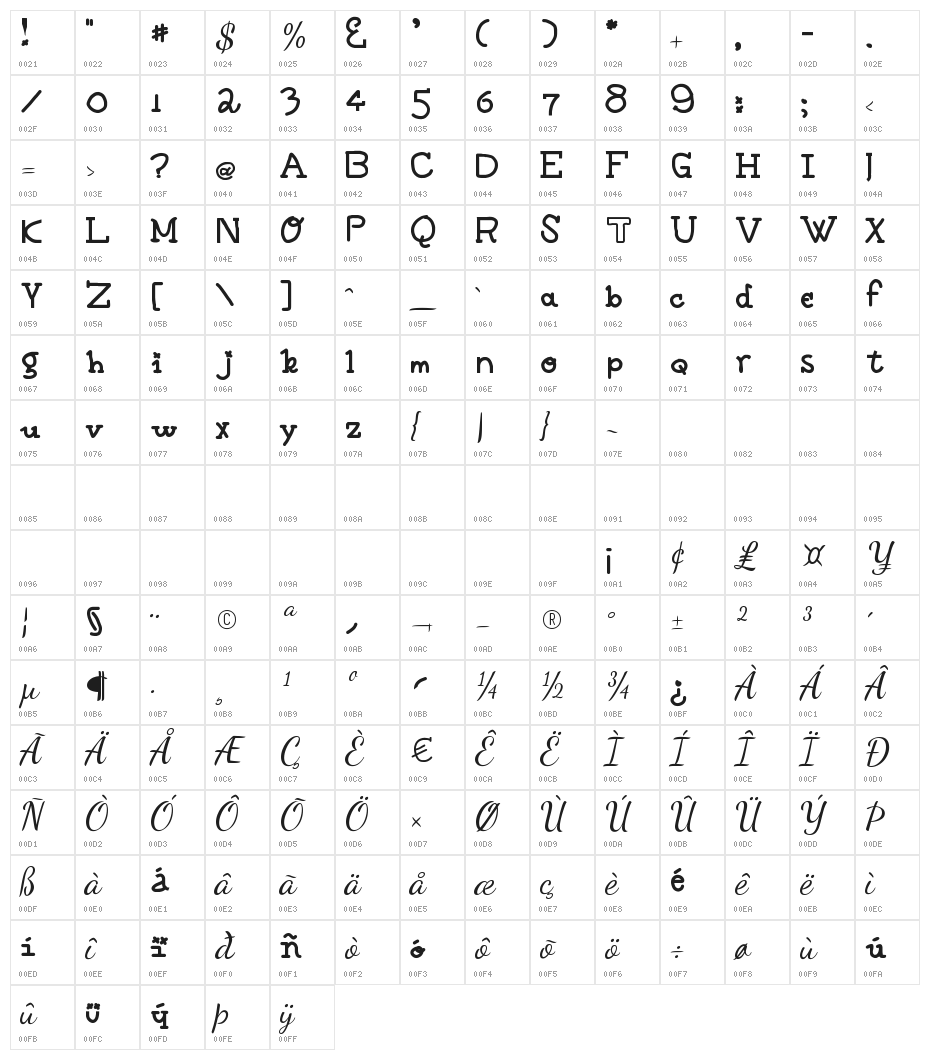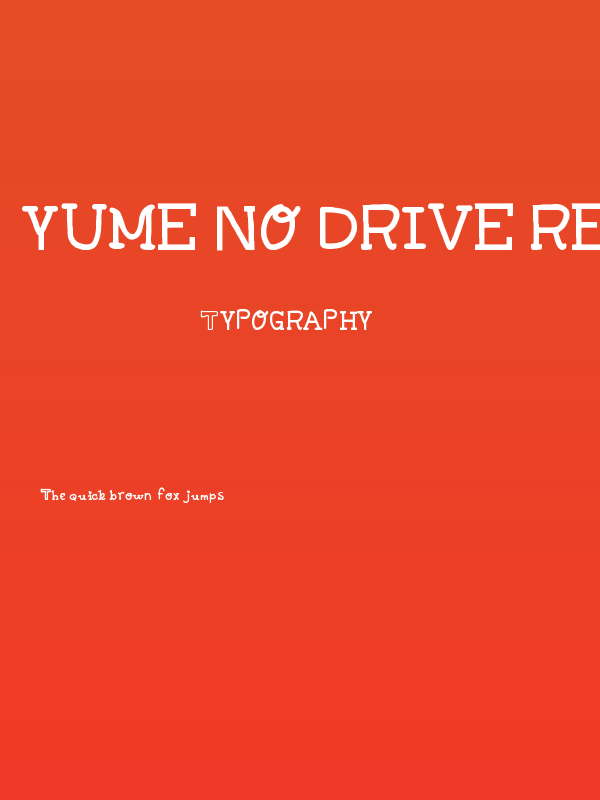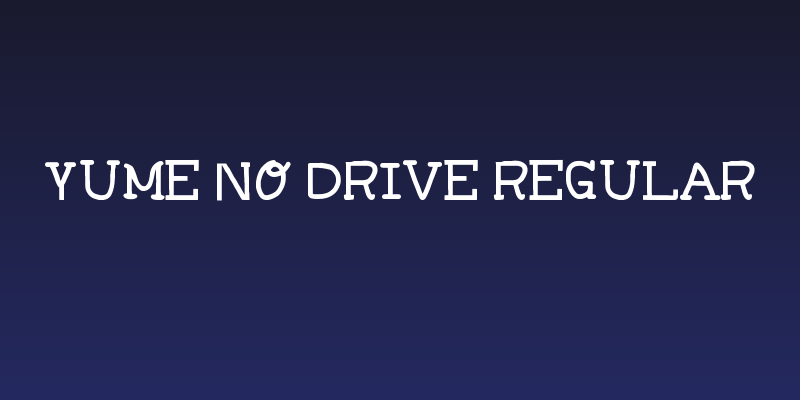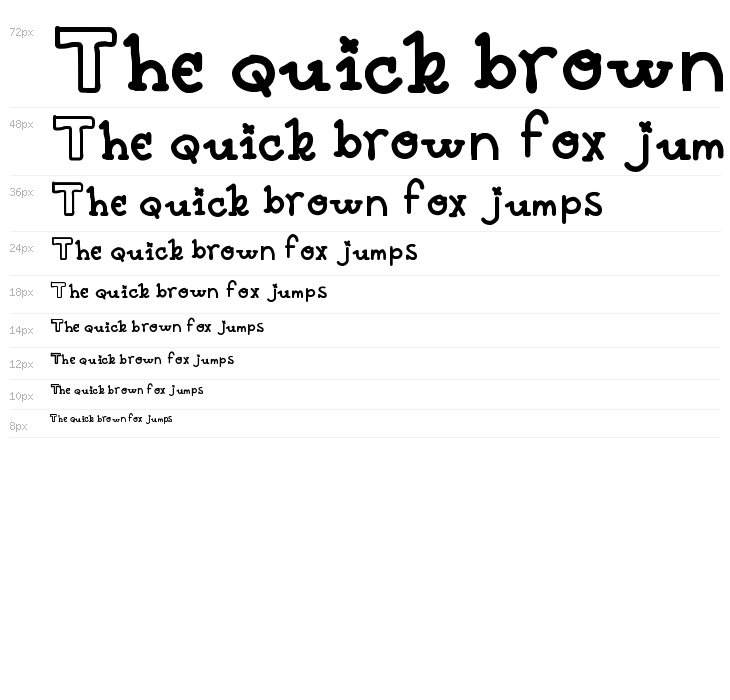
Yume no Drive Regular Font
Yume no Drive Regular Description
This font features a playful and whimsical style, characterized by its irregular and slightly wavy strokes. The letters have a hand-drawn appearance, with varying stroke thickness that adds a dynamic and lively feel. The uppercase letters are bold and prominent, while the lowercase letters maintain a consistent style with unique quirks, such as the looped 'g' and the distinctive 'e'. The numerals and special characters follow the same playful theme, making the font suitable for creative and informal designs. Its overall appearance is both approachable and artistic, making it stand out in any project.